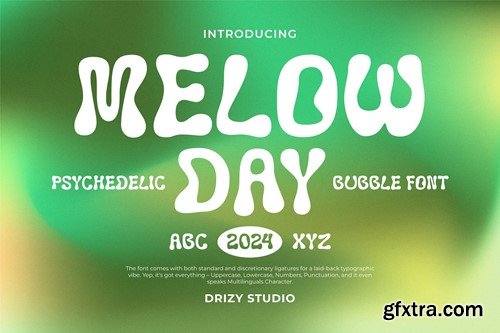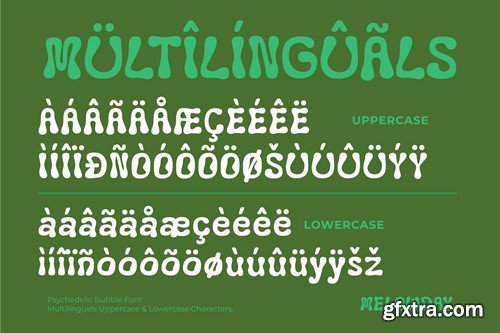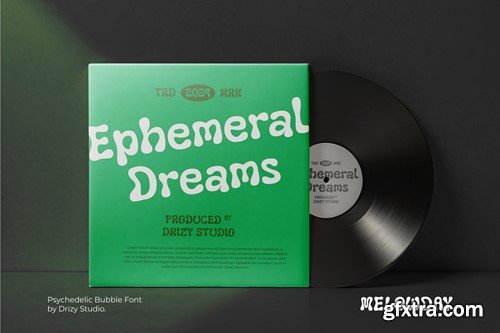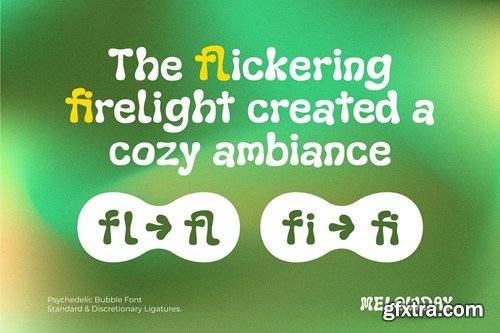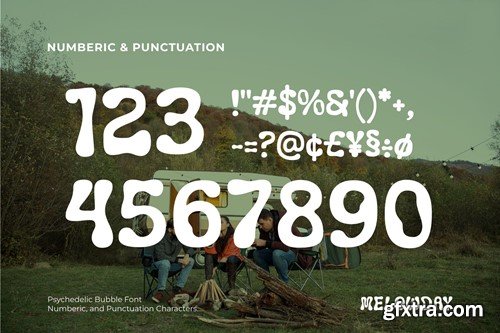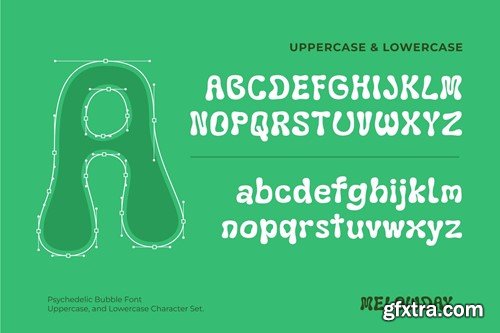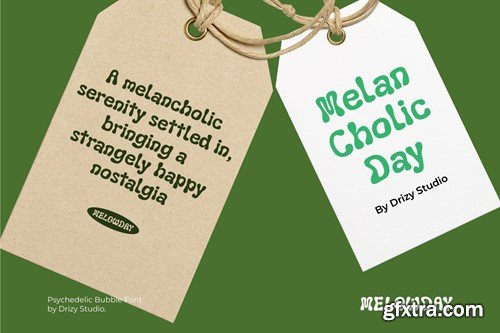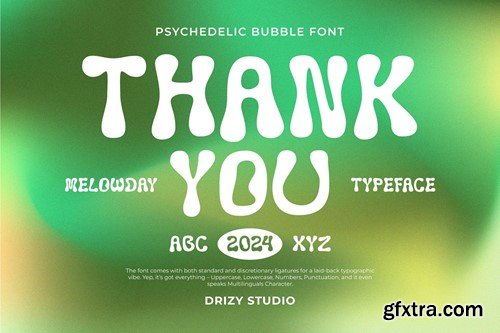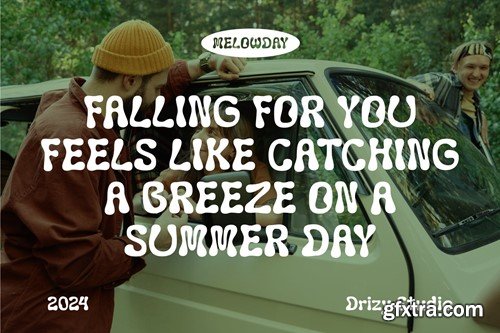
Melowday - Psychedelic Bubble Font
Melowday - Psychedelic Bubble Font is a whimsical and vibrant typeface that captures the essence of a groovy and psychedelic era. The letters are fluid and organic, resembling bubbles that seem to float and dance across the page. The font exudes a sense of floral aesthetic and lightheartedness, making it perfect for projects that seek to convey a retro or psychedelic aesthetic. Melowday features: Uppercase & Lowercase Punctuation & Numbers Multilingual Support Ligatures File Included: OTF & TTF Elevate and explore the design possibilities with this Psychedelic Bubble Font!